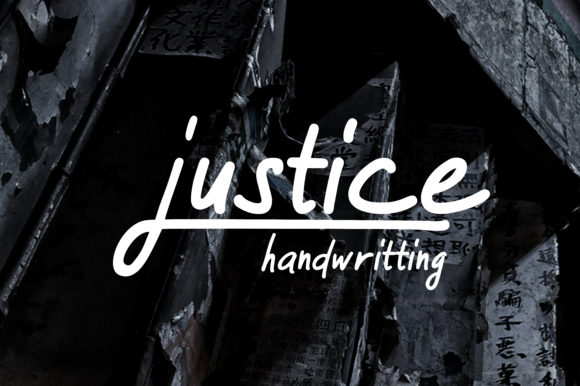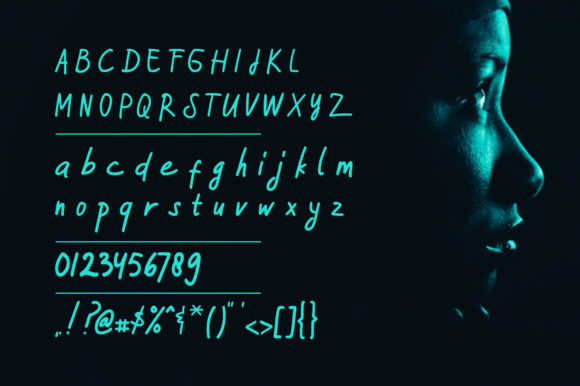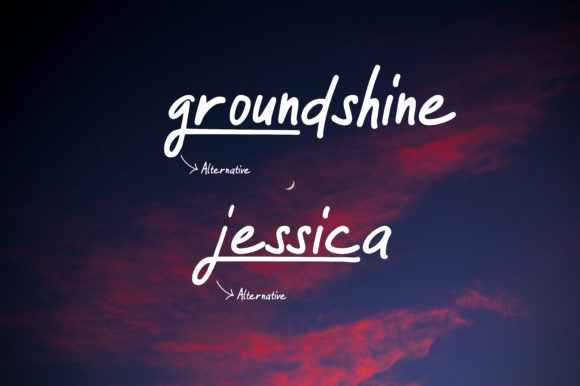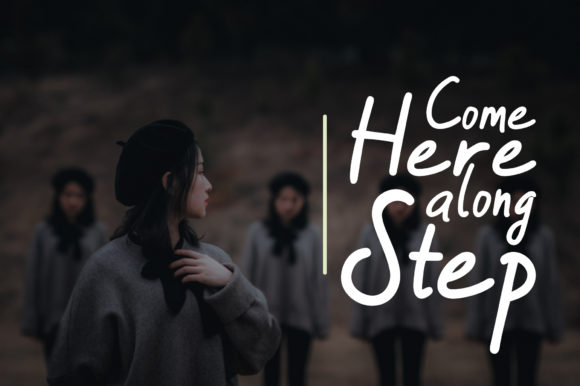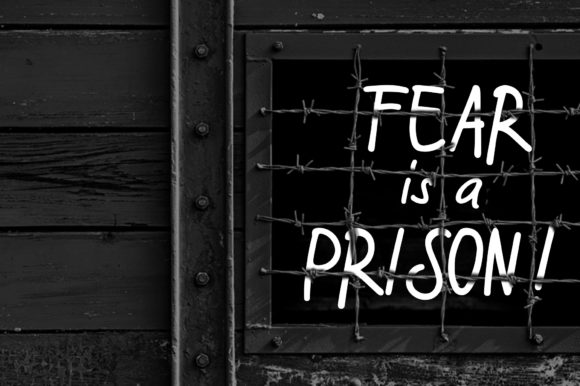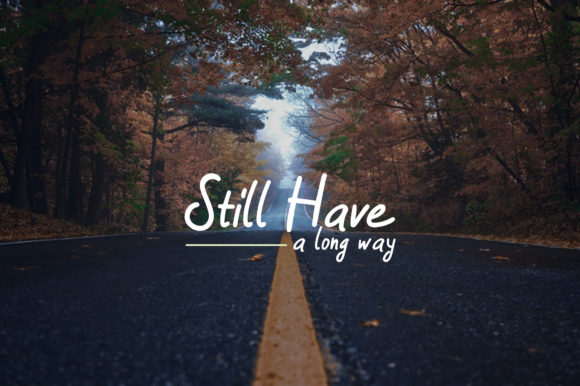
Justice Font
About Justice Font
The Justice is a simple handwritten font. It has a great readability and is perfect for quotes, branding, posters, and much more!